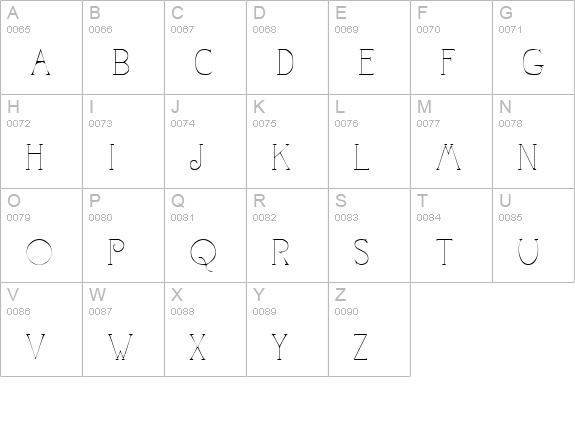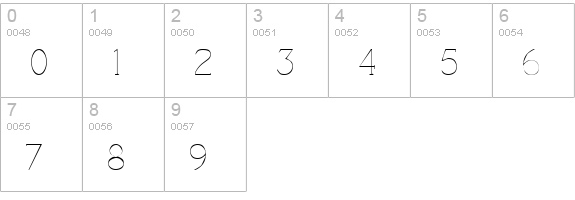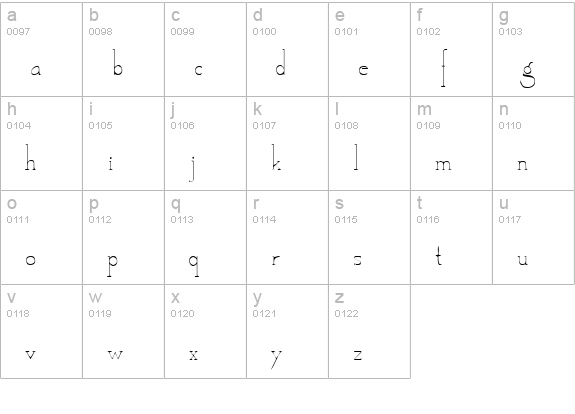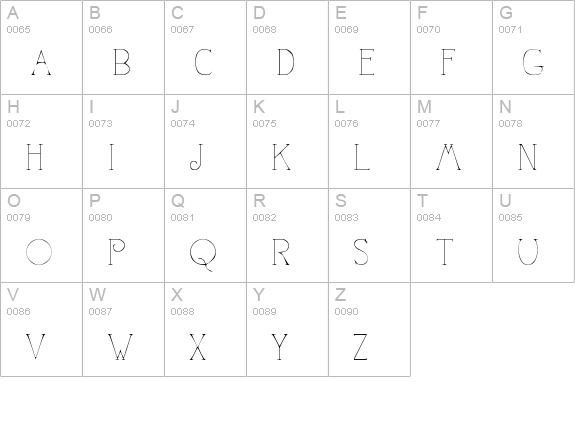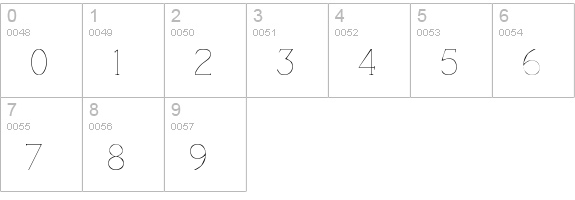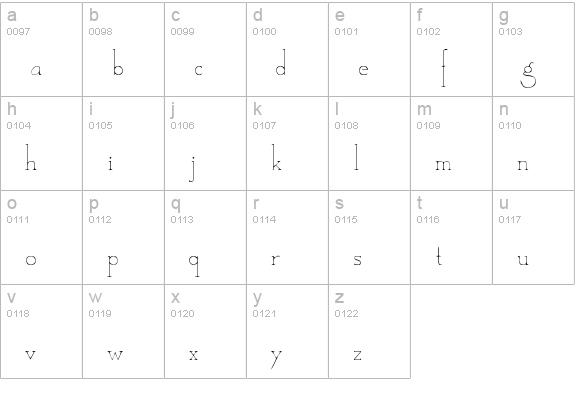
Expose font is a modern and stylish typeface that exudes sophistication and elegance. With its sleek lines and contemporary design, Expose font is perfect for a wide range of design projects, from branding to editorial design. This versatile font is sure to make your work stand out and leave a lasting impression on your audience. What's even better is that Expose font is available for free download at FontsMarket.com. That's right, you can easily access this stunning font without having to spend a dime. So why wait? Elevate your designs with Expose font today and unleash your creativity like never before.